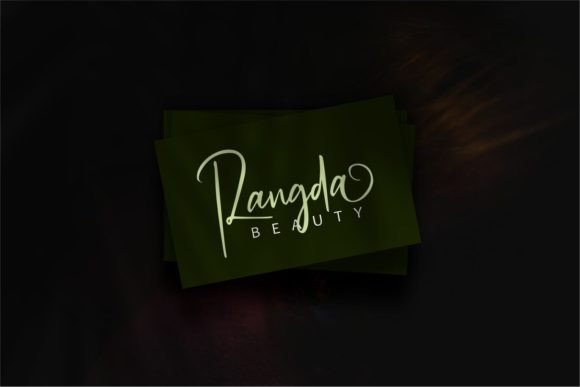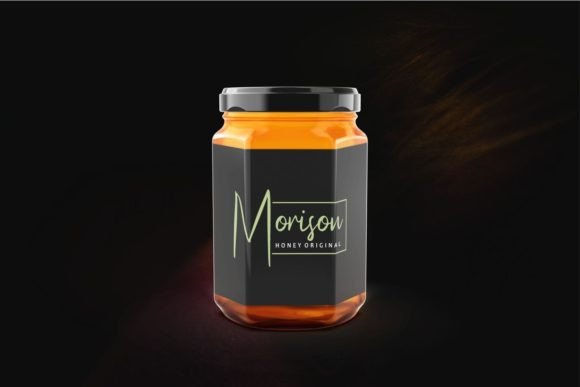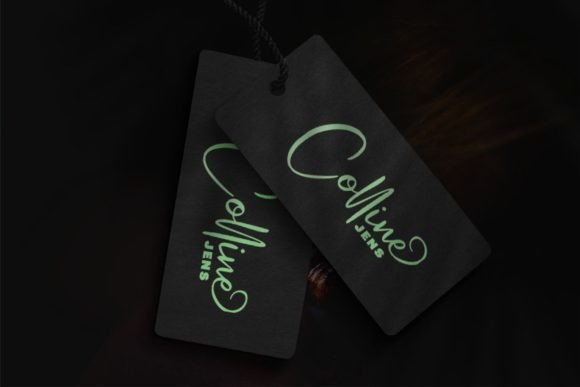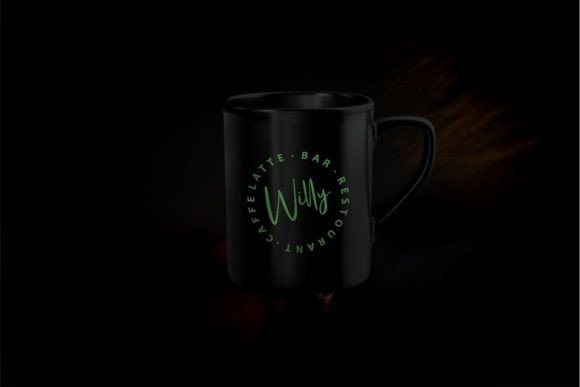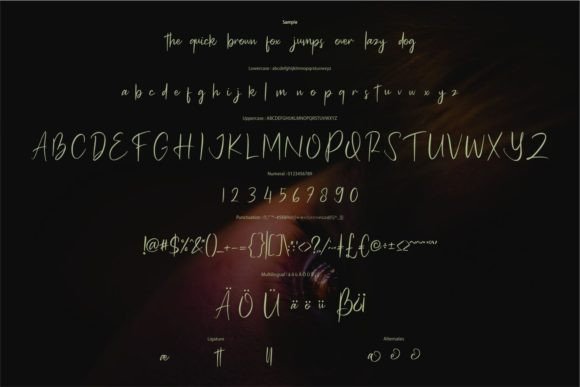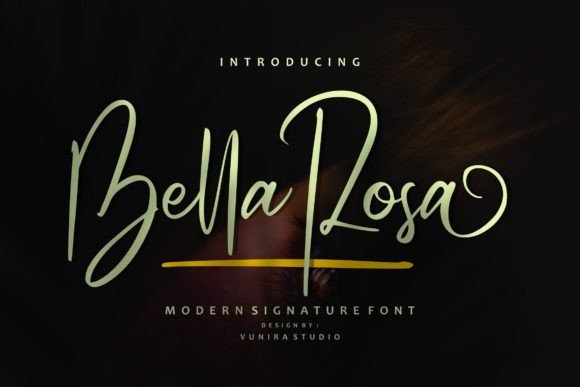
Bella Rosa Font: Elevate Your Designs with Elegance and Sophistication
In the world of typography, fonts play a crucial role in defining the aesthetic and tone of a project. For designers and crafters looking to add a touch of elegance and sophistication to their work, the Bella Rosa font is an exceptional choice. This chic and modern signature font is designed to bring a stylish, personalized feel to your text, making it ideal for a variety of applications, from invitations and branding to any project that demands a refined signature style.
The Essence of Bella Rosa Font
Bella Rosa is more than just a font; it’s a statement of style and class. With its graceful strokes and contemporary flair, this font combines modernity with a timeless signature aesthetic. The result is a typeface that feels both current and classic, allowing designers to create works that are not only visually appealing but also deeply elegant. Whether you’re working on a wedding invitation, a brand logo, or a packaging design, Bella Rosa can elevate your project with its unique charm.
Key Features of Bella Rosa Font
- Chic and Modern Design: Bella Rosa boasts a sleek and contemporary design that instantly adds a touch of sophistication to any text.
- Elegant Strokes: The font’s graceful strokes contribute to its refined and classy appearance, making it perfect for projects that require a high level of elegance.
- Signature Style: Bella Rosa is specifically designed as a signature font, making it ideal for use in signatures, titles, and any text that needs to stand out with a personal touch.
- Versatility: This font is versatile and can be used across various platforms and mediums, from digital designs to print materials.
- Timeless Appeal: Despite its modern design, Bella Rosa has a timeless quality that ensures your designs remain stylish and relevant for years to come.
Applications of Bella Rosa Font
The versatility of Bella Rosa makes it suitable for a wide range of applications. Here are some of the most popular uses:
- Wedding Invitations and Stationery: Add a touch of elegance and romance to your wedding invitations, save-the-date cards, and other stationery with Bella Rosa.
- Branding and Logos: Use Bella Rosa to create sophisticated and memorable brand identities that stand out from the competition.
- Packaging Design: Elevate your product packaging with a refined and stylish font that enhances the overall aesthetic of your brand.
- Digital Designs: Bella Rosa is perfect for use in digital designs, including website headers, social media graphics, and email newsletters.
- Art and Craft Projects: Crafters and artists can use Bella Rosa to add a professional and elegant touch to their handmade products and artwork.
Why Choose Bella Rosa Font?
Choosing Bella Rosa font for your projects comes with numerous benefits. Here are a few reasons why designers and crafters prefer this elegant typeface:
- Easy to Read: Despite its elegant design, Bella Rosa is highly legible, making it suitable for both headings and body text.
- Unique Style: The font’s unique style ensures that your designs stand out and leave a lasting impression on your audience.
- High-Quality: Bella Rosa is crafted with high-quality design principles, ensuring that it looks great in any size or application.
Bella Rosa font is a versatile and elegant typeface that can add a touch of sophistication and class to any project. Its modern design, combined with timeless appeal, makes it an excellent choice for designers and crafters looking to elevate their work. Whether you’re creating wedding invitations, branding materials, or digital designs, Bella Rosa is sure to bring a stylish and personalized feel to your text. By incorporating Bella Rosa into your design toolkit, you’ll be able to create visually stunning and memorable projects that stand out from the crowd.